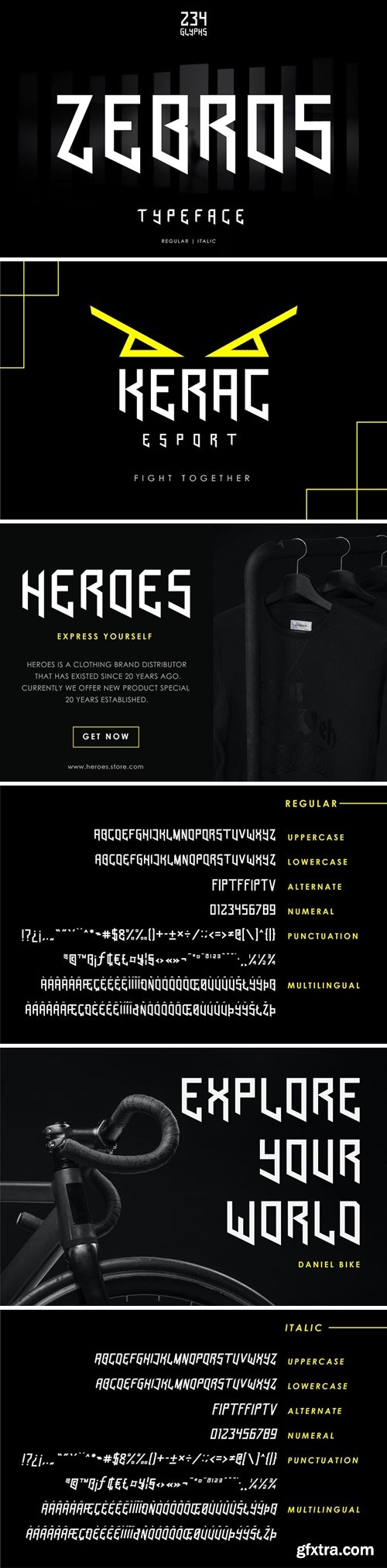
Zebros Futuristic Logo Font
Zebros is a cool, futuristic and neat display font. This font is ideal for logos, branding or pretty much anything else that requires a unique touch.